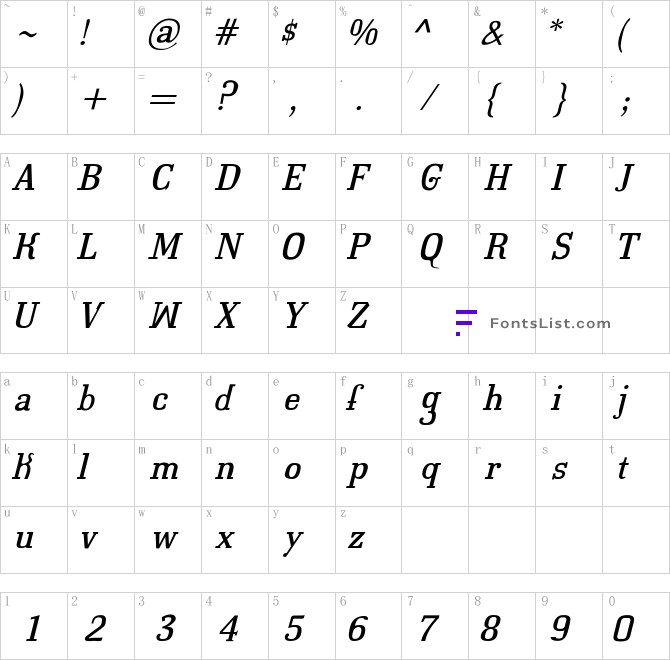
- Font Name:Calvino
- Copyright:Designed by Elliott Peter Earls, The Apollo Program. Copr. 1994.
Calvino-BrokenHand.ttf is a very beautiful artistic font, Calvino-BrokenHand.ttf is widely used in the design and printing of various books and pictures,Calvino-BrokenHand.ttf has a strong visual impact,Calvino-BrokenHand.ttf is a commonly used font in newspapers, magazines and books, and is used in posters, e-commerce Poster design, store design, logo design, font design and other fields.Calvino-BrokenHand.